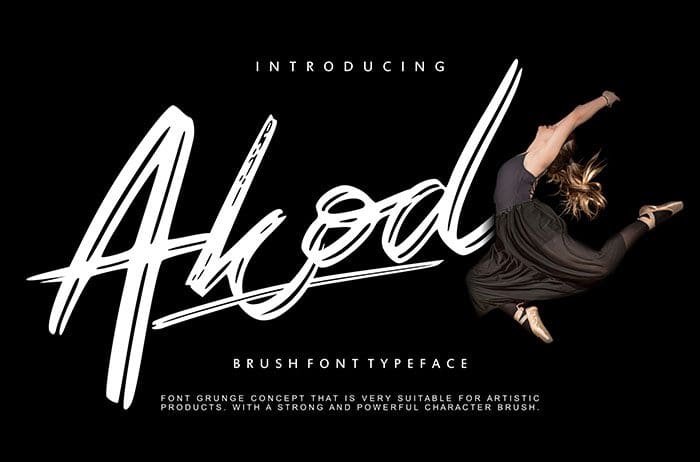
Akod Brush Font
Akod Brush Font is a calligraphy style script font with a unique character. This font will make your designs stand out from the crowd! Inspired by its exciting look & feel. Thanks to Vunira Studio for sharing this font! Take a look at this portfolio for more of his stunning fonts.